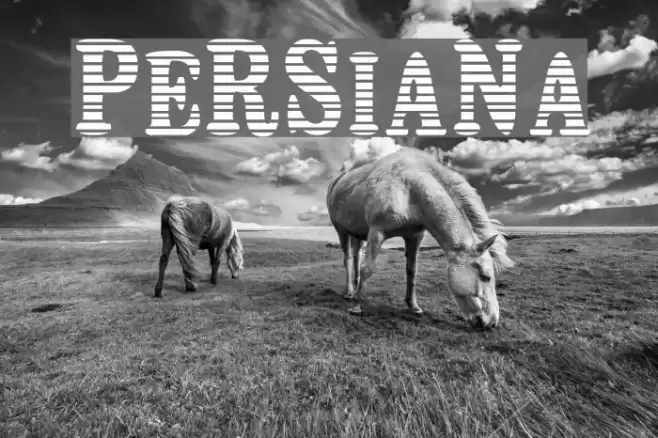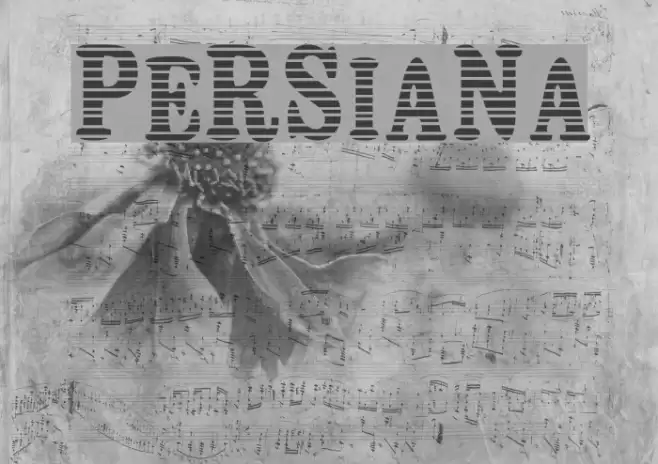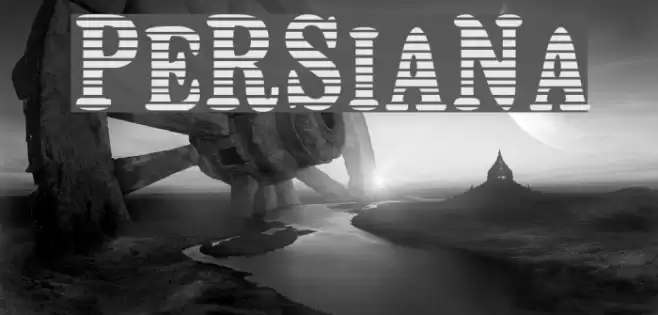
Persiana Font
Persiana Description
This font features a bold, decorative style with a unique striped pattern running horizontally through each character. The uppercase and lowercase letters maintain a consistent width, giving a uniform appearance. The numerals and special characters follow the same design, ensuring cohesion across all elements. The font's distinct style makes it stand out, with its high contrast between the thick, bold strokes and the thin, striped lines. This creates a visually striking effect that is both modern and artistic.
A bold, decorative font with a unique horizontal striped pattern from Uncategorized fonts.
- Proposed Projects: Ideal for eye-catching posters, branding materials, and creative projects that require a bold statement.